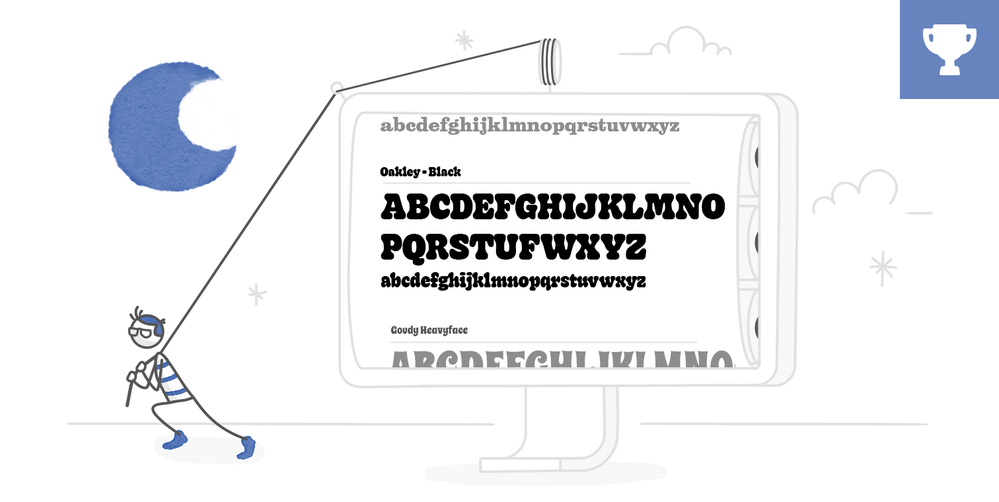
This week, your challenge is to share an example that shows how heavy, chunky fonts can be used in e-learning. You can share a single slide or build out a working interaction to show how you’re using big, fat, and chunky fonts.
Chunky fonts are generally classified as "black," "display," or "ultra bold" within a typeface family. A quick search on Creative Market returned the following categories:
Here are some serif-iously good resources on using and finding ultra heavy fonts: